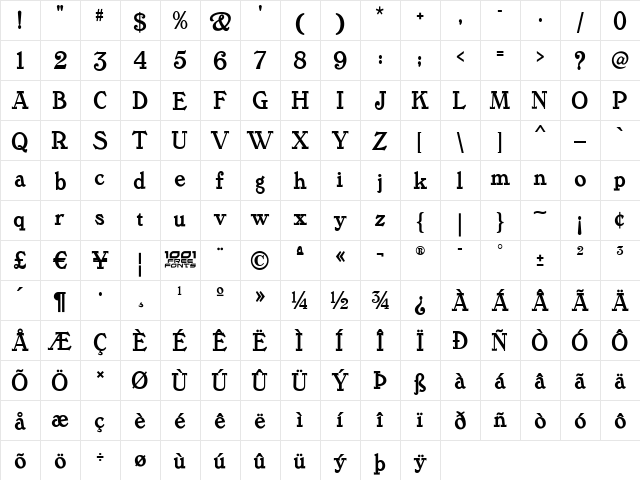
Tanglewood Tales NF Regular
| Designer | Nick Curtis |
Design Context for Tanglewood Tales NF Typeface
Tanglewood Tales NF echoes the hand-painted signage and woodblock typography of the American frontier, with a warm, rugged personality.
A natural fit for craft spirits, ranch branding, rodeo events, and Americana-inspired design work.
Font Pairing: Combine Tanglewood Tales NF with a simple slab or neutral sans — period-accurate companions reinforce the vintage feel without competing for attention.
Pro Tip: Use Tanglewood Tales NF for short, impactful bursts of text — it shines in poster headlines and product names rather than extended copy.